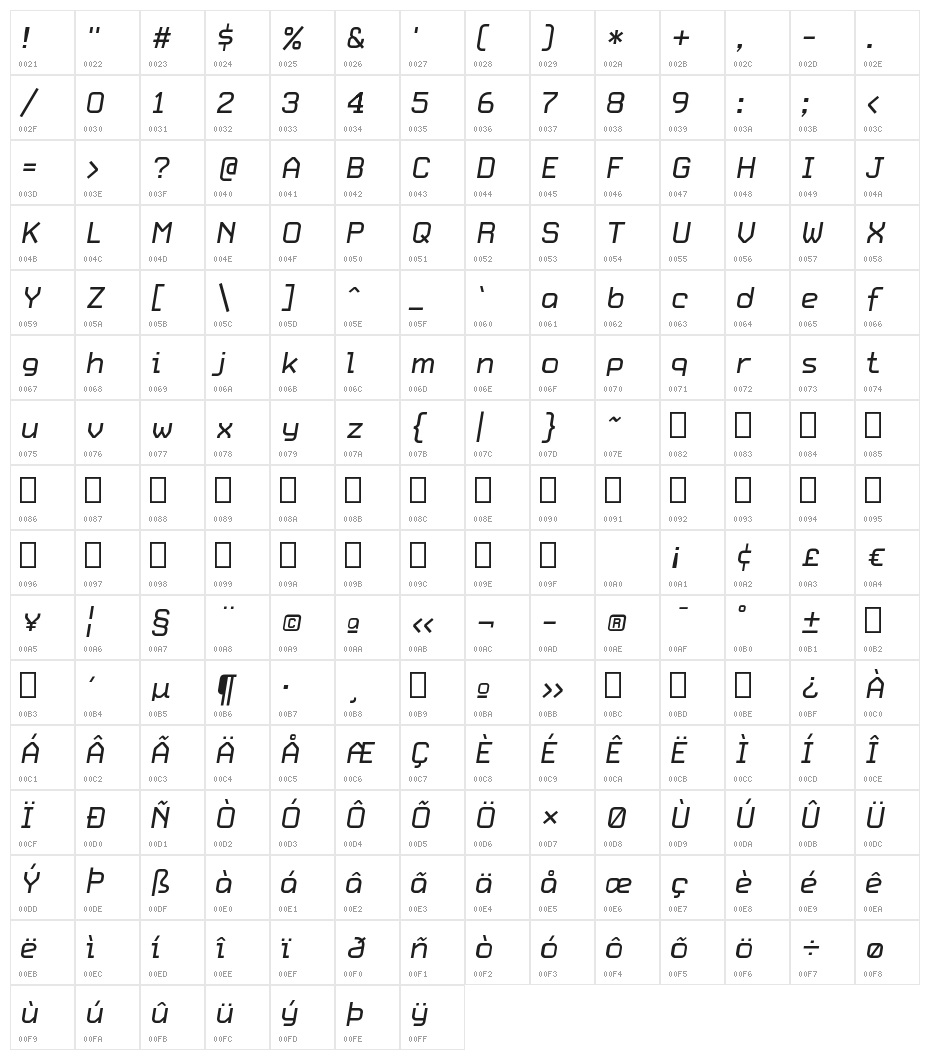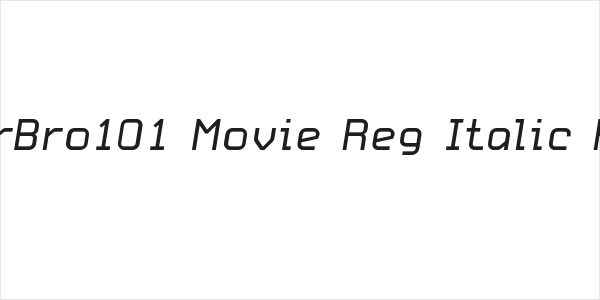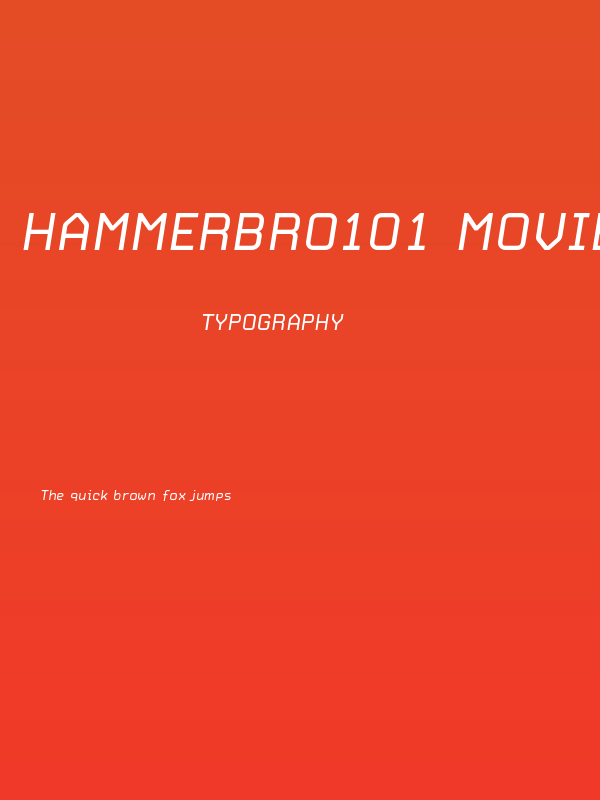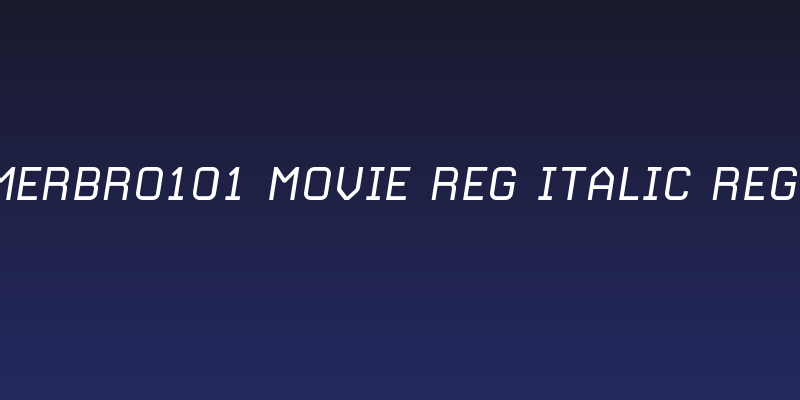
HammerBro101 Movie Reg Italic Regular Font
HammerBro101 Movie Reg Italic Regular Description
This font features a modern, geometric design with a slight italic slant, giving it a dynamic and forward-moving appearance. The characters are clean and well-defined, with consistent stroke widths that provide a uniform look. The uppercase letters are slightly taller than the lowercase, maintaining a balanced proportion. The numerals are clear and easy to read, matching the style of the alphabet. Special characters are distinct and integrate seamlessly with the overall design. This font's simplicity and clarity make it versatile for various applications.